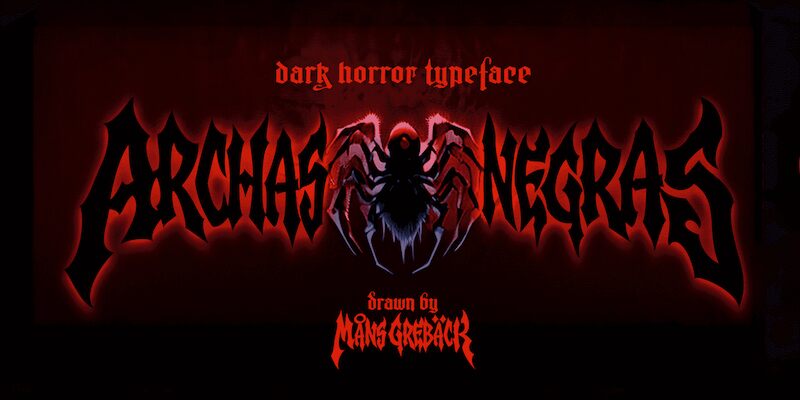
Archaz Negras, designed by Mans Greback, is a bold and condensed font that exudes the dark and mysterious atmosphere of Halloween and gothic themes.
Perfect for graphic design projects related to horror movies, haunted house attractions, or heavy metal band logos. Its raw energy captures the rebellious spirit of rock while maintaining an eerie allure of the unknown.
Let Archaz Negras lend a touch of darkness to your next creative endeavor.
Write % after any word to make it symmetric.
Example: Metal%
Use { } [ ] < > around any word to give it wings.
Example: [batstyle]
Use characters ≠ to make symbols like dragons, bats, spiders.